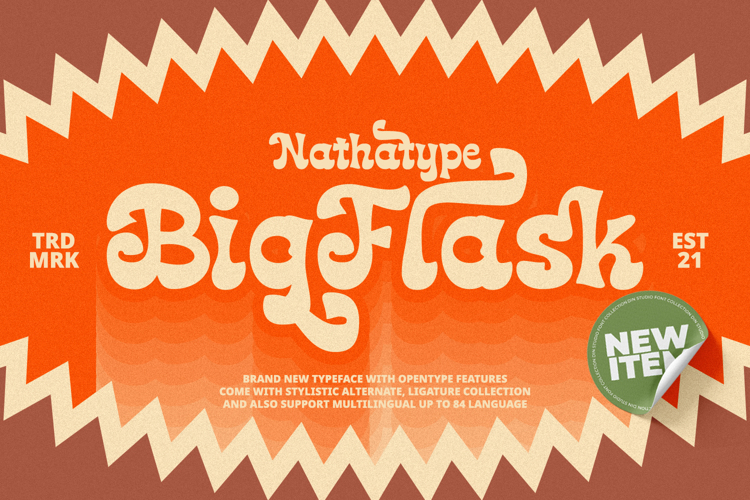
Big Flask Font
Product Description:
Big Flask is a typeface that will make your projects elevate. An excellent choice to add the right amount of retro touch. This typeface with artistic style looks very interesting for loads of different projects and promotions.
Features:
• Ligatures
• Stylistic Sets
• Numerals and Punctuations =======================================================